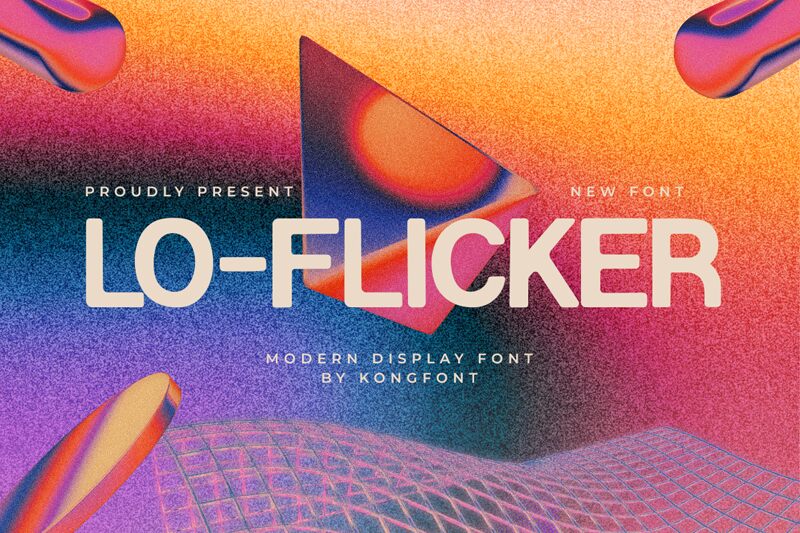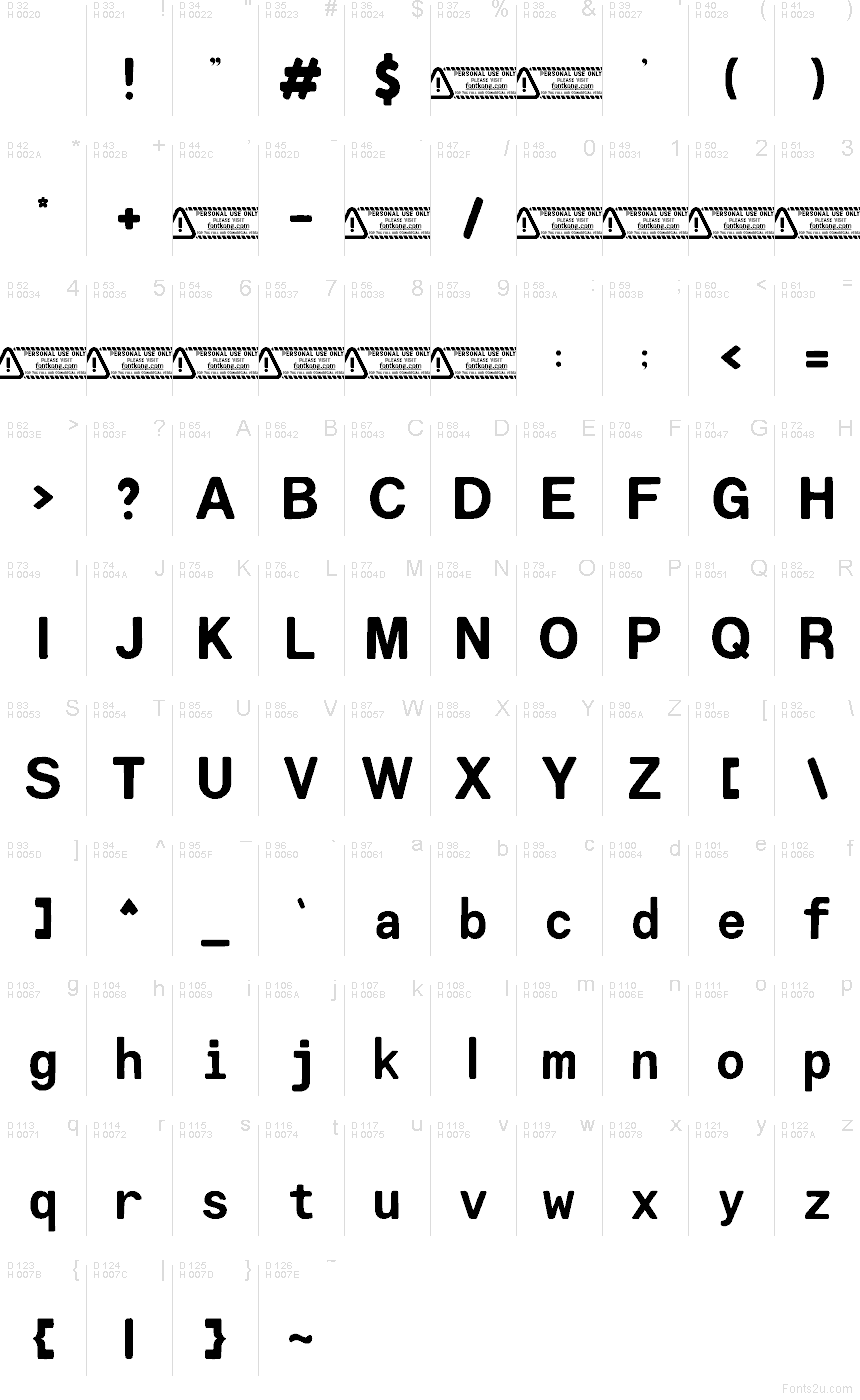
Lo-flicker font by Kong Font is a free chunky rounded sans font, with a lo‑fi wobble that feels like old CRT glow—soft corners, heavy strokes, and a slightly jumpy rhythm that reads loud even from across the room. It’s friendly, a bit noisy, and unapologetically bold.
Using Lo-flicker, you’ll get punchy results on YouTube thumbnails, streetwear tags, arcade posters, sticker packs, album covers, app splash screens, and playful brand marks. Set it big with generous tracking so the shapes can breathe, then pair it with a clean neutral sans for body copy to keep the vibe crisp while this free font does the shouting.